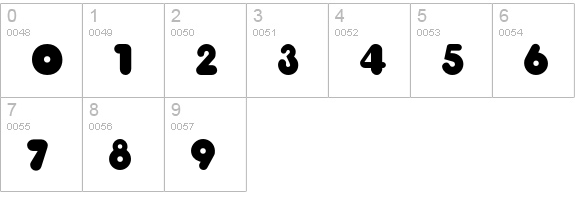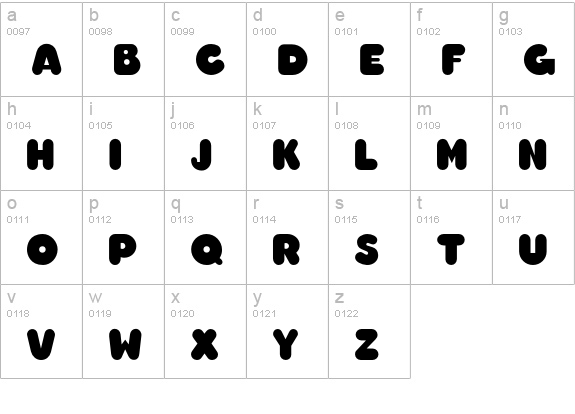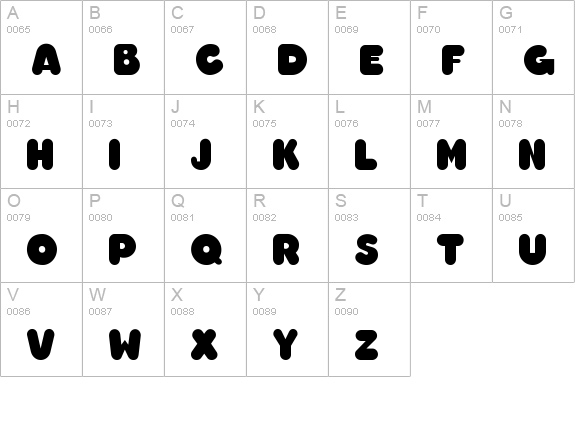
TooMuchOpaque Font Details
Introducing TooMuchOpaque font, a stunning and versatile typeface that exudes elegance and sophistication. This font is a perfect blend of modern design and classic appeal, making it suitable for a wide range of creative projects. With its bold and pronounced letterforms, TooMuchOpaque commands attention and adds a touch of flair to any design. Whether you're creating eye-catching headlines, stylish logos, or captivating social media graphics, this font is sure to make a lasting impression. But what sets TooMuchOpaque font apart from the rest is its unique ability to strike the perfect balance between legibility and artistic expression. Each character is meticulously crafted, ensuring optimum readability without compromising on style. And the best part? TooMuchOpaque font is completely free! That's right, you can freely download this incredible font at FontsMarket.com. It's never been easier to elevate your designs with a high-quality, professionally designed typeface without breaking the bank. So why wait? Transform your creative projects today with TooMuchOpaque font. Download it for free at FontsMarket.com and experience the power of typography at its finest. Let your imagination run wild and watch as your designs come to life with this exceptional font.